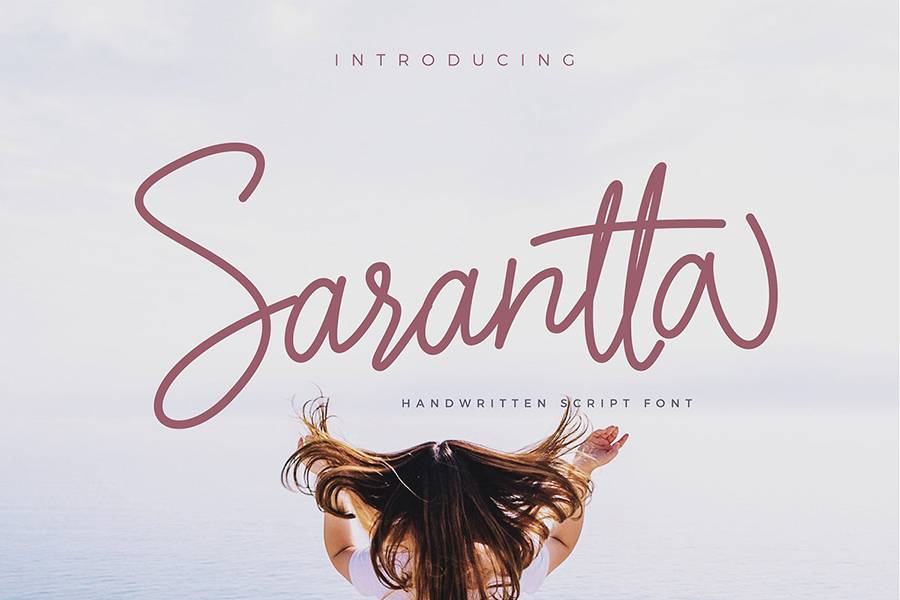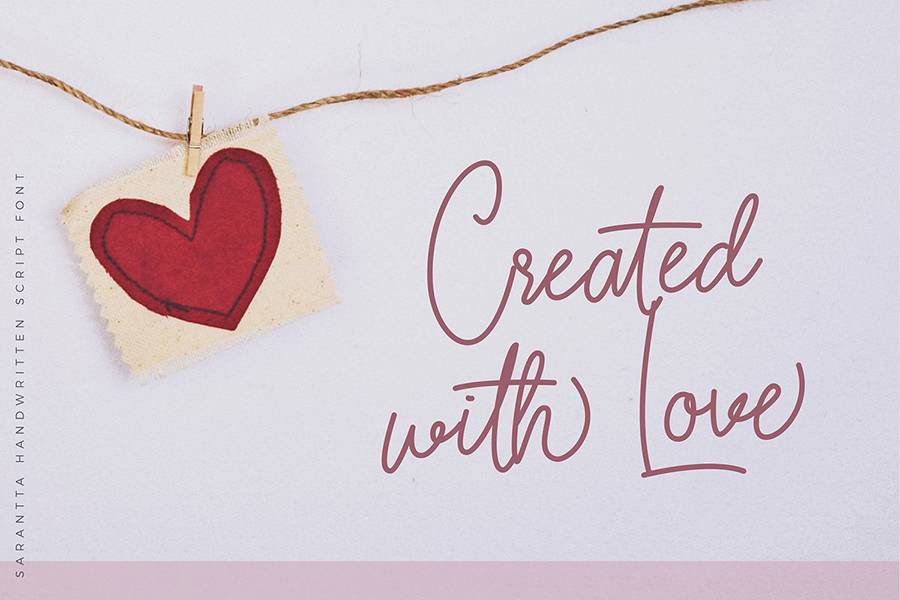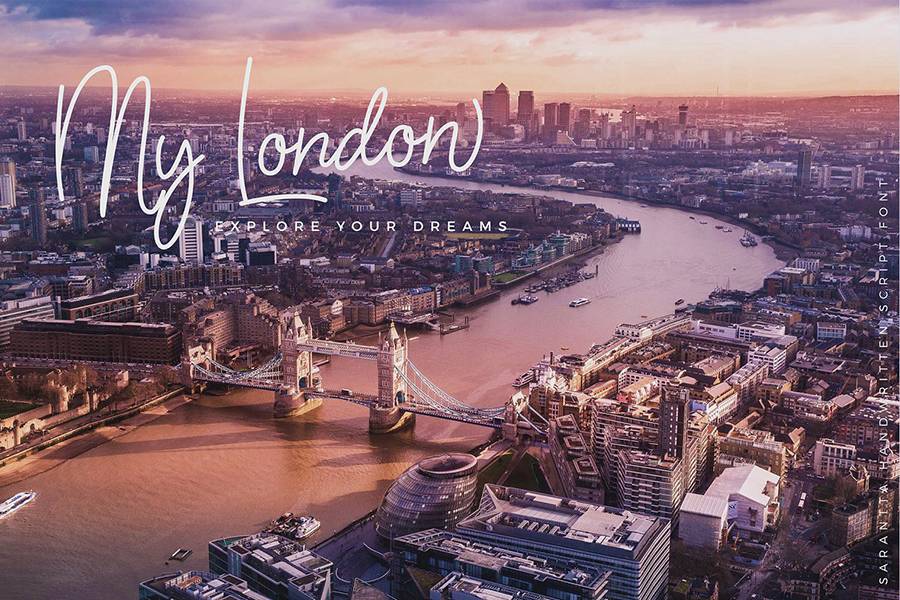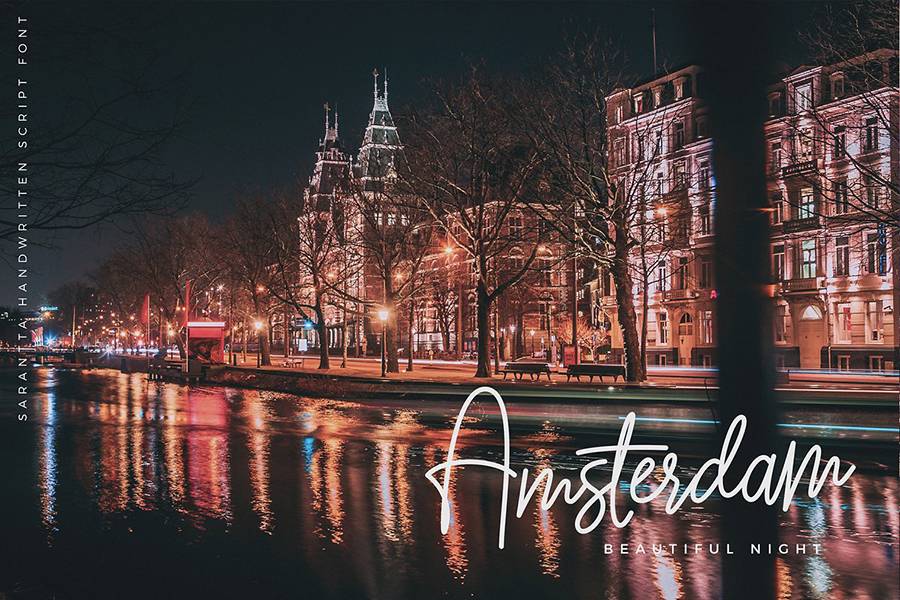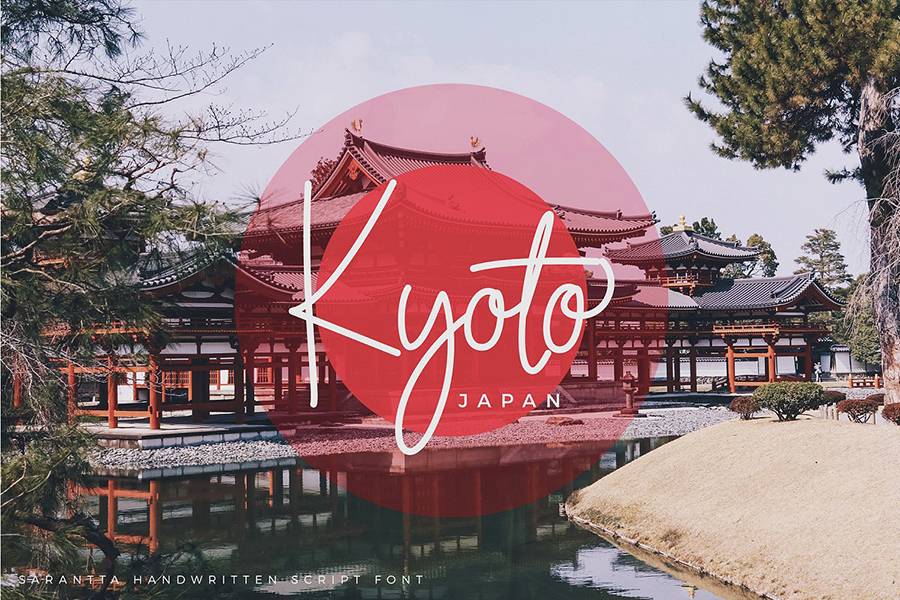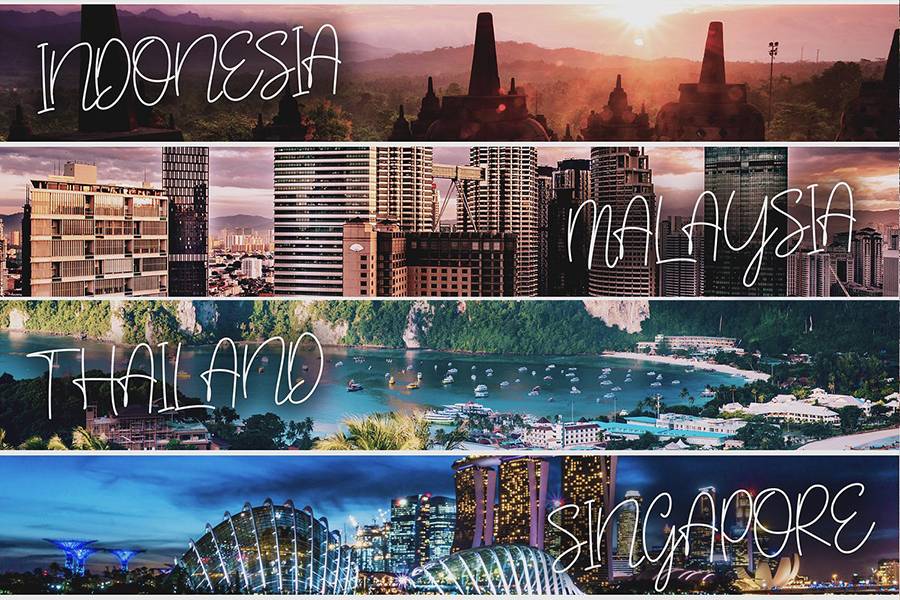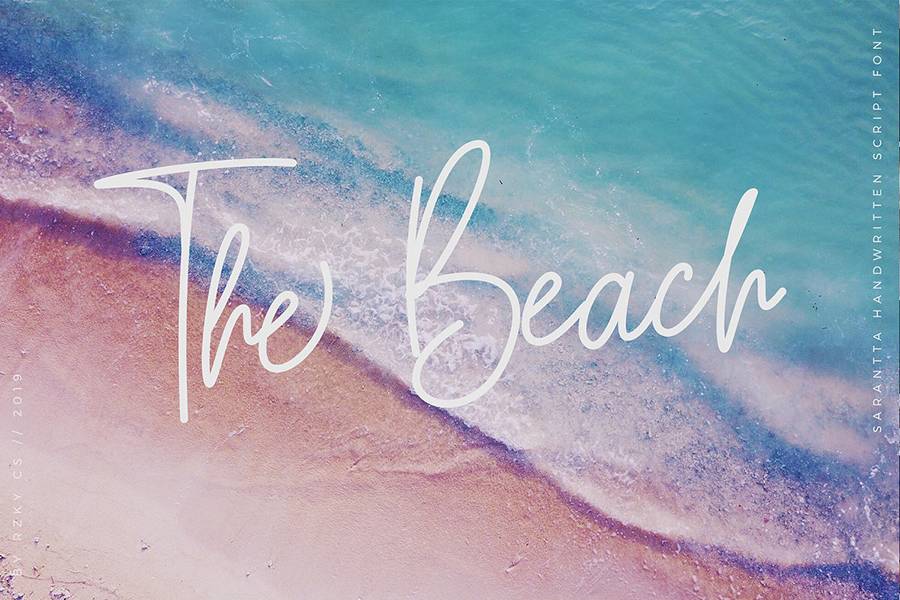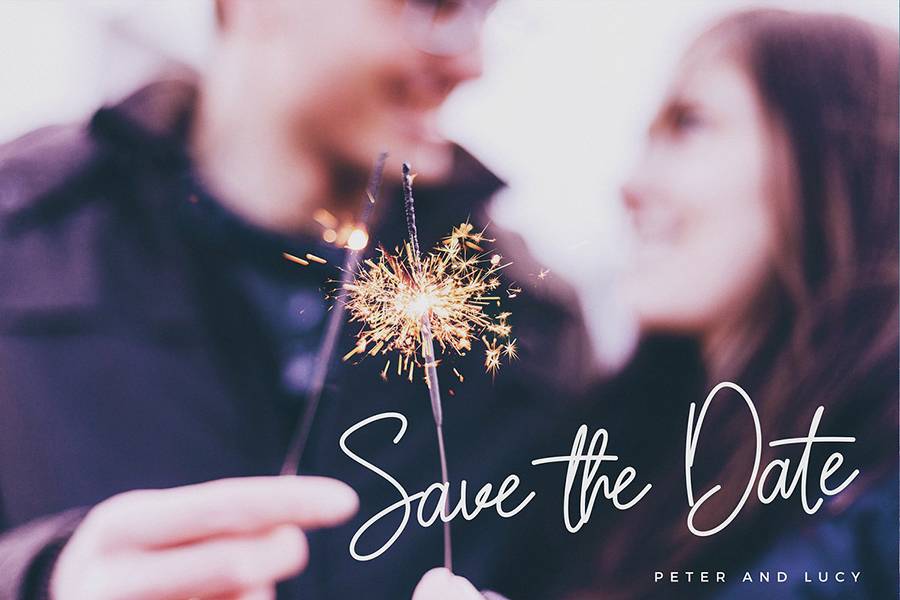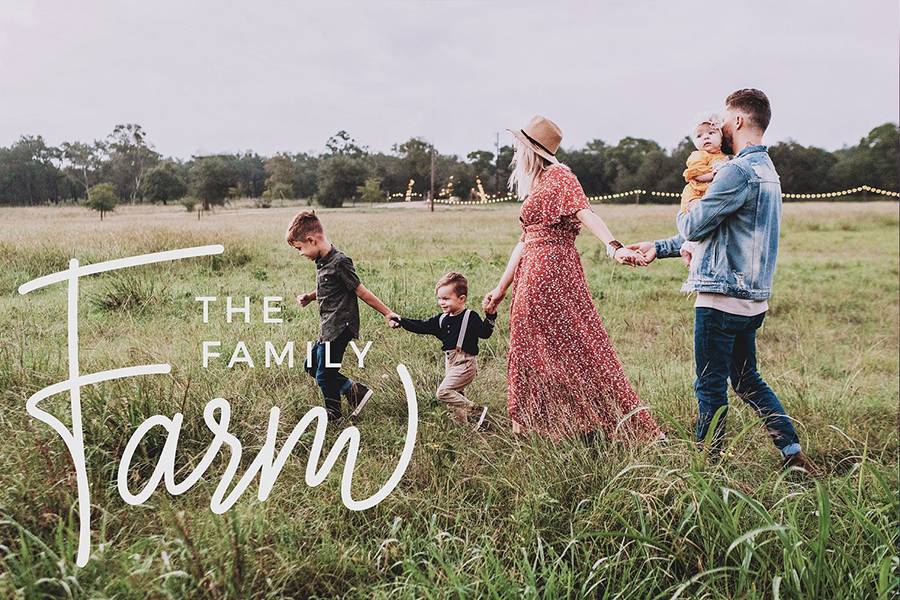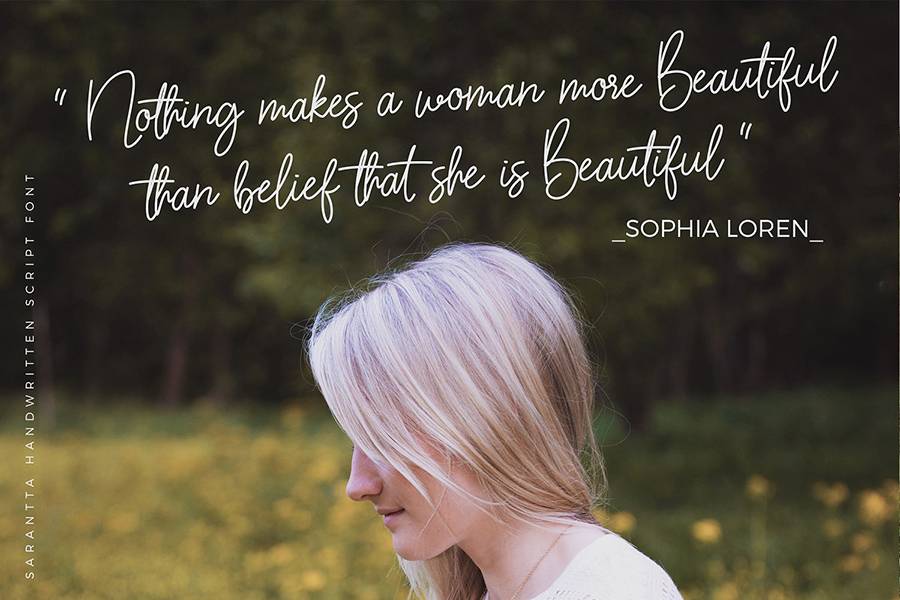
Sarantta Handwritten Script is a delicate, slender script font featuring tall, flowing letters with a natural, handwritten feel. Its light weight and elegant, slightly irregular lines give it a personal and graceful touch, making it ideal for invitations, branding, and projects that seek a refined yet approachable style. This font works best in creative and feminine contexts where a sense of warmth and individuality is desired.
Sarantta Handwritten Script Font
About Sarantta Handwritten Script Font
| Font family | Sarantta Handwritten Script Font |
| Release date | 2019-08-01 |
| Designer | Rizky Chandra Sofyan |